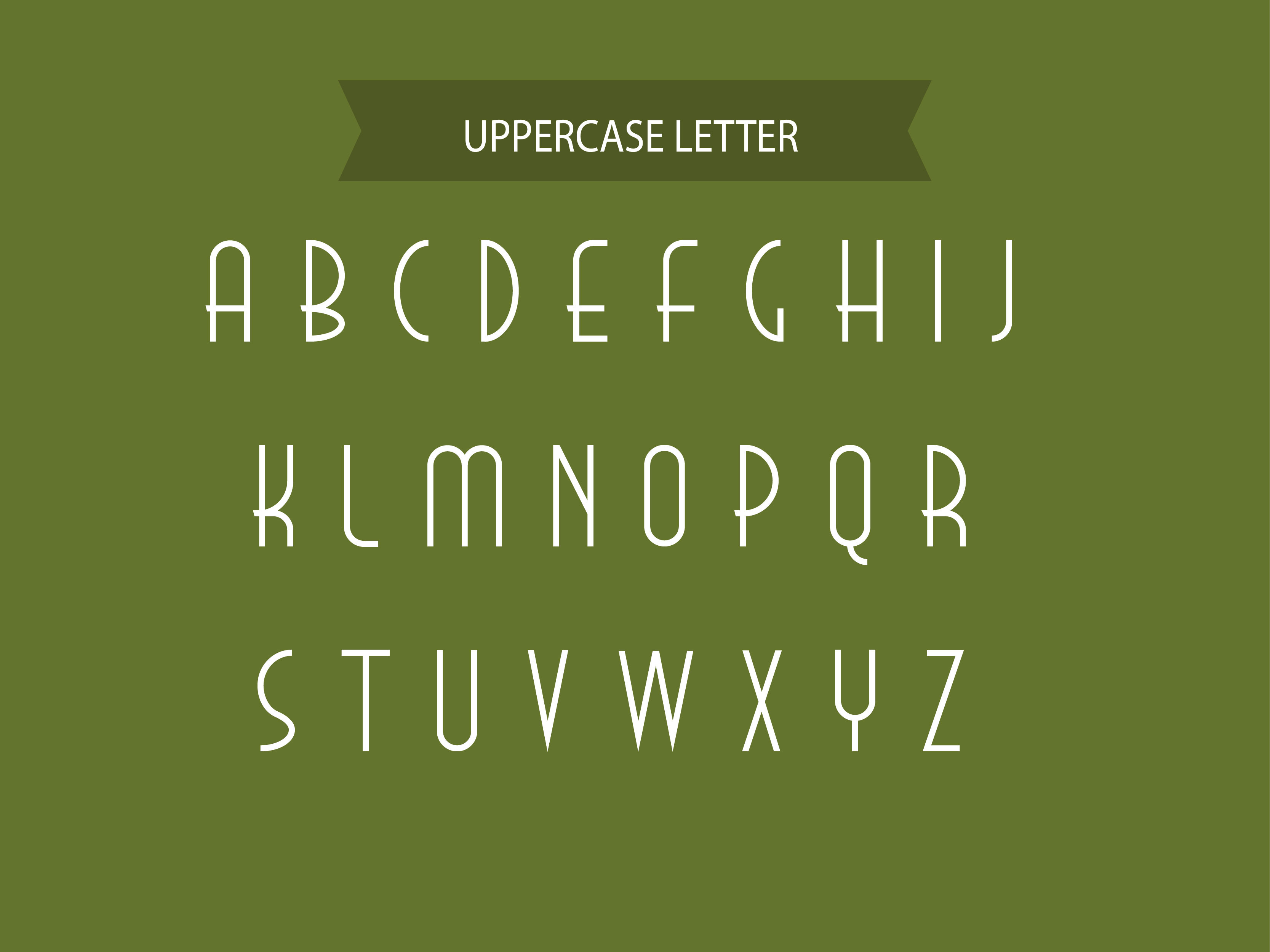
Zeraf Font
Make your creative design with “Zeraf Font” 3 in one family Font suitable for any creative design
Zeraf Font Information
Zeraf Font is a stylish hand made Font, Available in
Zeraf Regular -Zeraf Bold -Zeraf Black
3 in one version with all special characters.
Make your design with Zeraf Font
Suitable for…
Magazine design
Cover design
Flyer design
Display font
Web site Slider Font
Hade line font
Regular font
Product name
Etc.